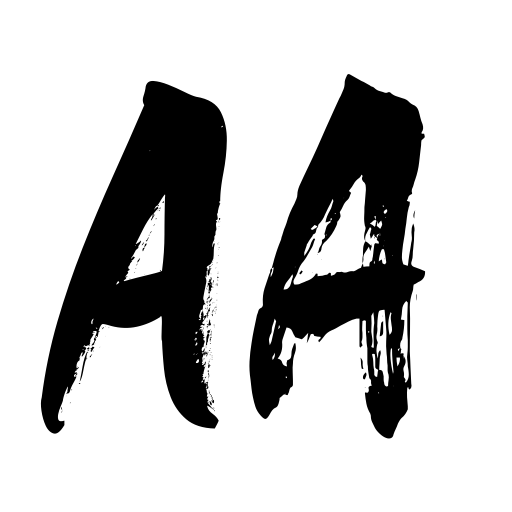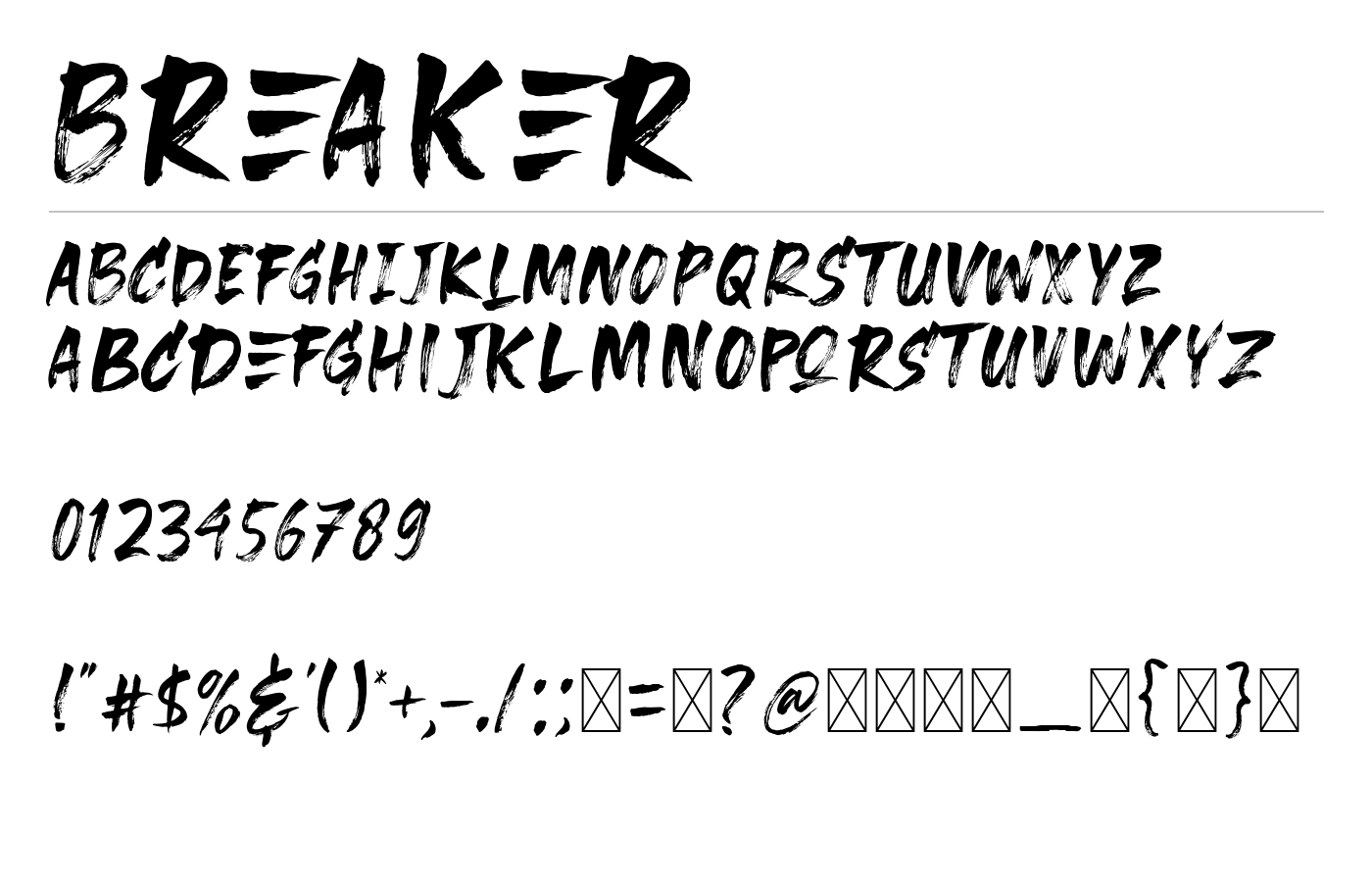
Breaker Font is a bold, expressive brush script that captures a strong, energetic vibe with its rough, textured strokes and dynamic letterforms. Perfect for creating eye-catching headlines, posters, or branding that demands attention and conveys creativity and movement, it brings a casual yet impactful personality to any design.
Breaker Font
About Breaker Font
| Font family | Breaker Font |
| Designer | Nugi Maulana Nurzahid |